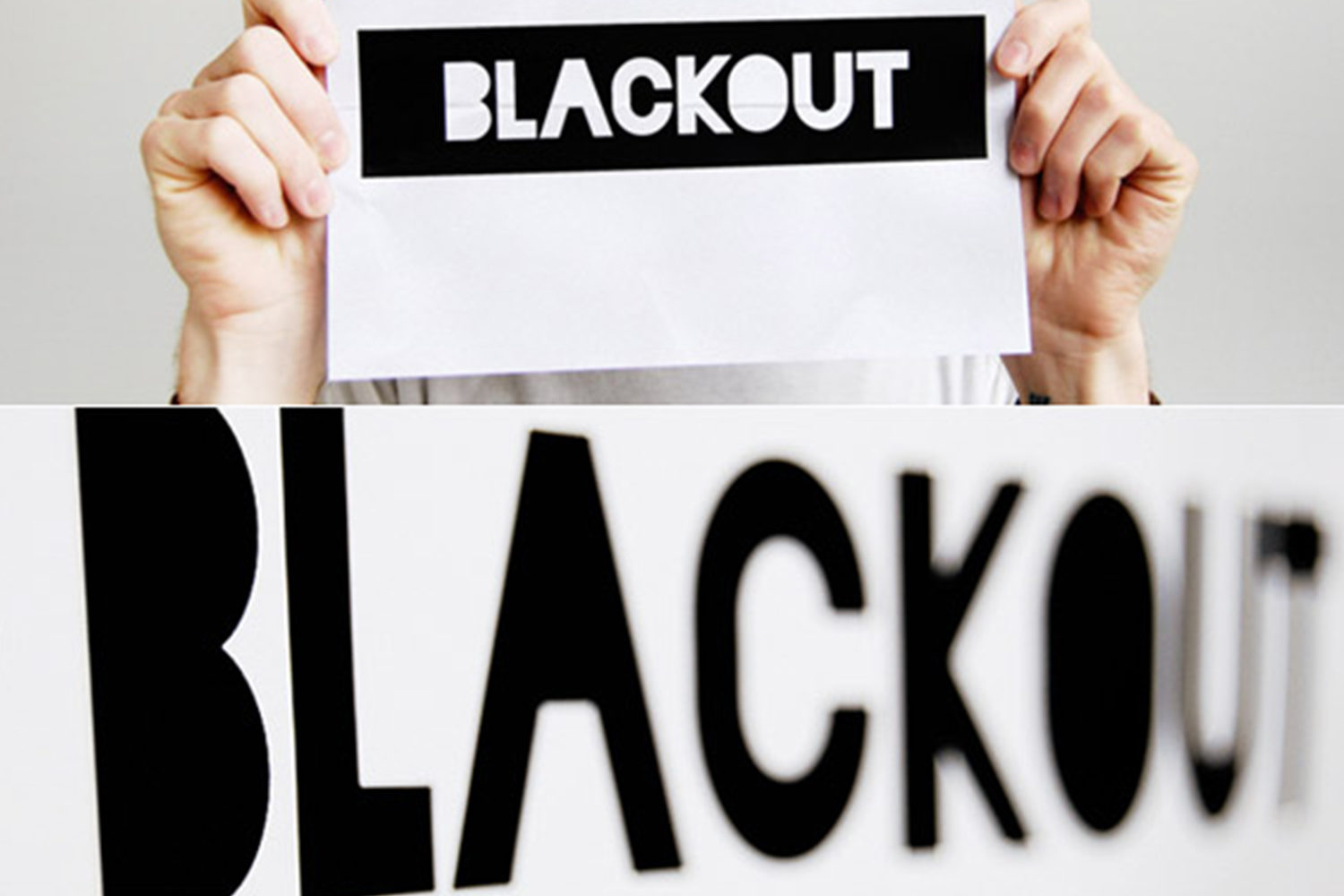
Nice uppercase-only sans serif face. This font family is developed by The League of Moveable Type and is freely distributed under the Sil Open Font license.
Designed by The League of Moveable Type
Blackout Midnight The quick brown fox jumps over the lazy dog
Blackout 2 AM The quick brown fox jumps over the lazy dog